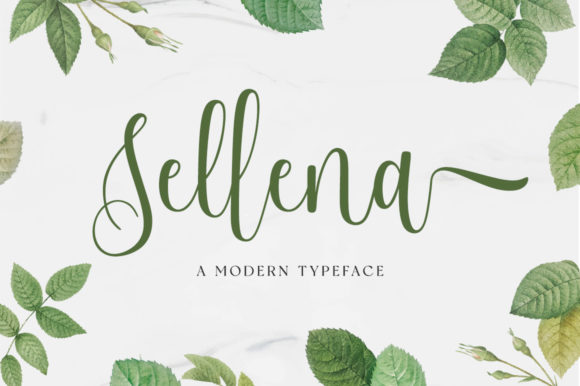
Behold, Sellena Script Font, a jewel in the crown of calligraphy, designed to infuse your creative expressions with elegance and charm. Lose yourself in the delicate strokes and graceful curves of this enchanting script font, meticulously crafted by the talented hands at Fanastudio.
As you embark on your creative journey with Sellena Script, you'll discover a world of possibilities. Its flowing characters, adorned with subtle flourishes and swashes, will elevate your designs to new heights of sophistication. Whether you're composing a heartfelt thank-you card, crafting an unforgettable wedding invitation, or adding a touch of refinement to your branding, Sellena Script will effortlessly transform your words into works of art.
Imagine the awe and delight of your recipients as they unfold a thank-you card adorned with Sellena Script's graceful letters. The delicate curves and elegant strokes will convey your gratitude with a sincerity that resonates. Your words will dance across the page, leaving an everlasting impression of thoughtfulness and appreciation.
Picture the joy and anticipation of your guests as they receive a wedding invitation penned in Sellena Script's enchanting characters. The elegant lines and sweeping flourishes will hint at the beauty and magic awaiting them on your special day. Their hearts will flutter with excitement as they eagerly RSVP to witness the unfolding of your love story.
Envision the impact of Sellena Script on your brand's identity. Its refined and timeless aesthetic will exude professionalism and sophistication, leaving an indelible mark on your customers' minds. From captivating logos to brochures that ooze elegance, Sellena Script will elevate your brand to new levels of recognition and prestige.
Embark on a transformative creative journey with Sellena Script as your trusted companion. Its versatility and charm will empower you to weave tales of love, joy, and elegance through the art of calligraphy. Let your imagination soar as you explore the endless possibilities that await you with this exquisite font.
Unleash the magic of Sellena Script today and elevate your designs to new heights of beauty and sophistication. Transform ordinary words into captivating expressions of art and leave a lasting impression on those you cherish.